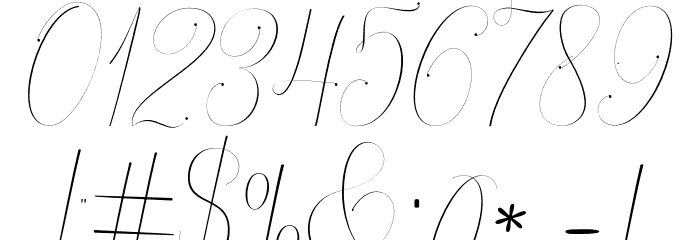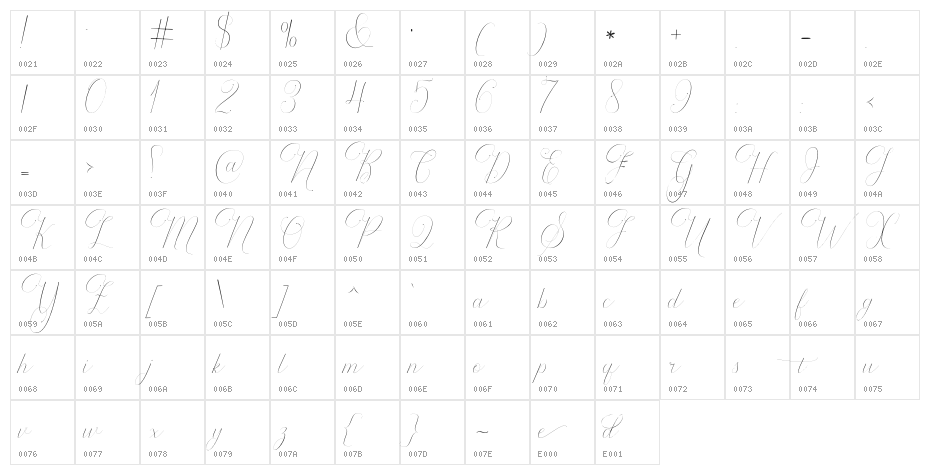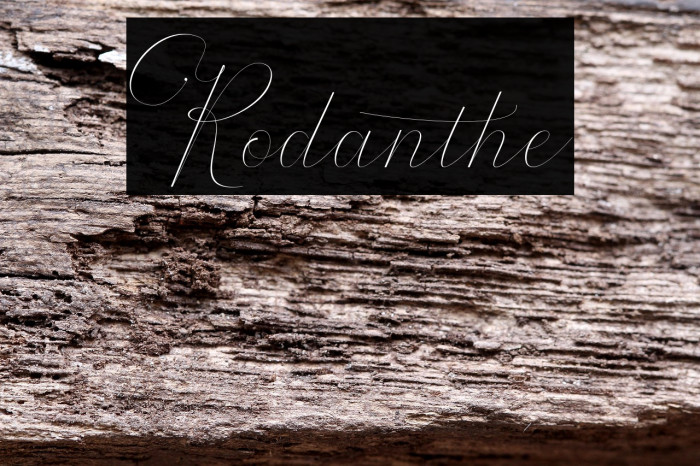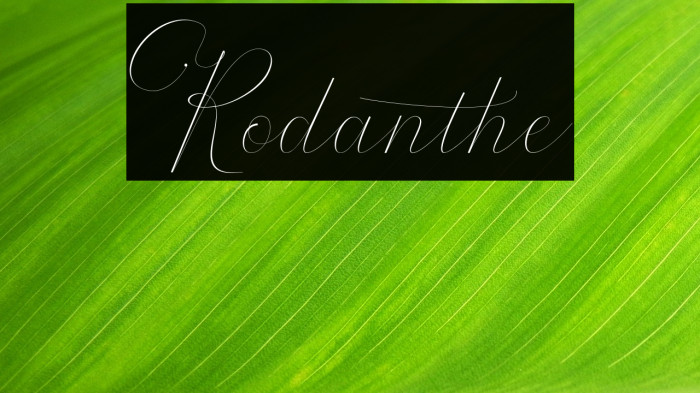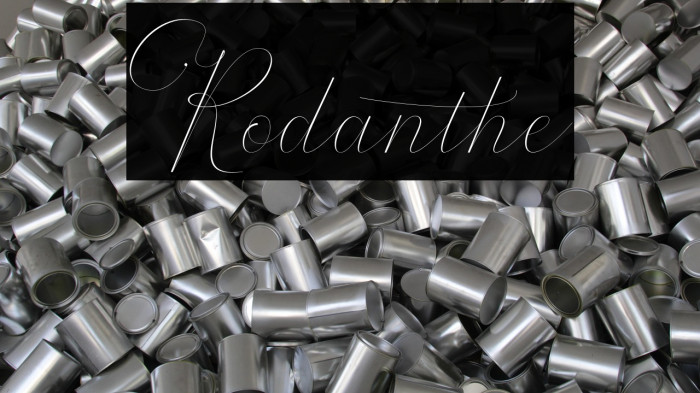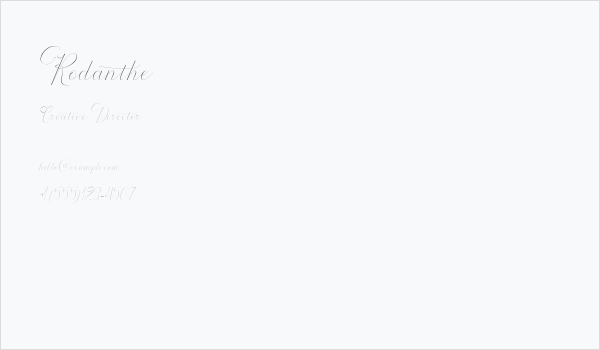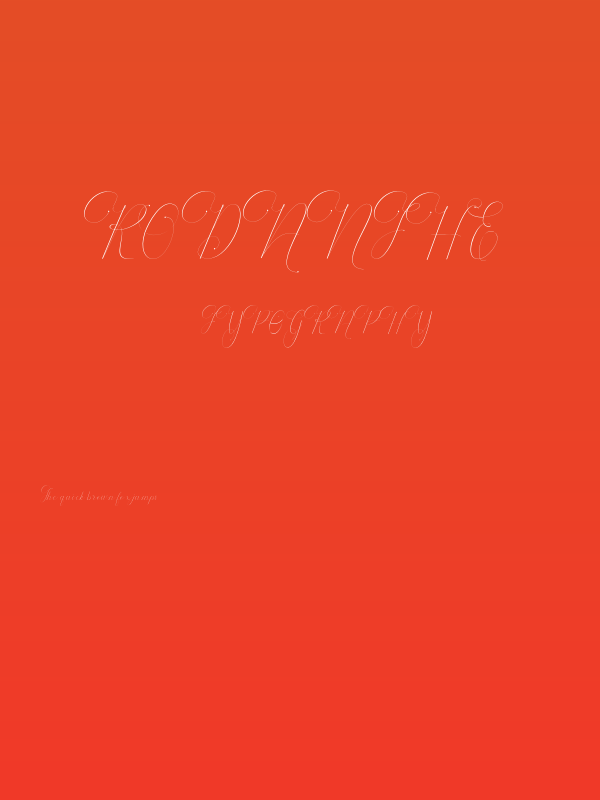
Rodanthe Font
Rodanthe Description
This elegant script font features flowing, cursive letterforms with delicate, thin strokes and graceful curves. The uppercase letters are particularly ornate, with intricate loops and flourishes that add a touch of sophistication. The lowercase letters maintain a consistent style, offering a harmonious blend of elegance and readability. The numerals and special characters are designed with the same attention to detail, ensuring a cohesive look across all characters. This font's refined style makes it suitable for formal invitations, branding, and any project that requires a touch of class.